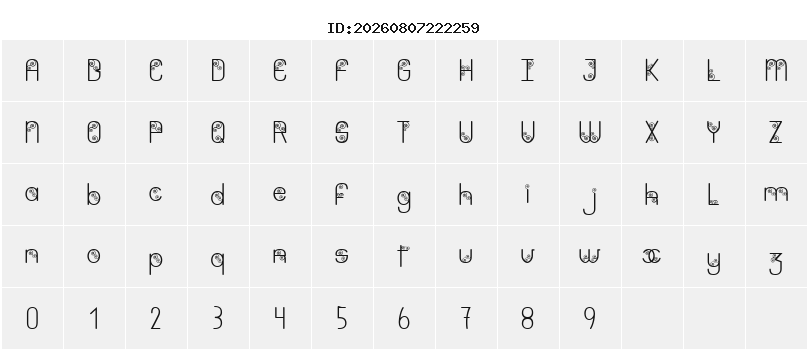
• Font Name: Purple shadow
• Designer: dcoxy Medina Gregory
Purple shadow.ttf is a modern, elegant sans-serif font designed for ultimate readability and visual harmony. Perfect for branding, headlines, web design, and print materials.